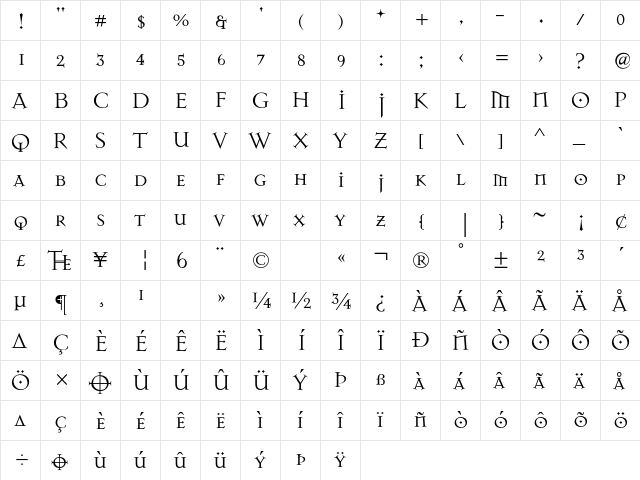
MasonAlternate Regular
Design Context for MasonAlternate Typeface
MasonAlternate takes a measured approach to typography — its balanced proportions and neutral character make it a reliable workhorse for both digital and print work.
Pro Tip: Use MasonAlternate in both headline and body roles to test its range before committing to a single application.